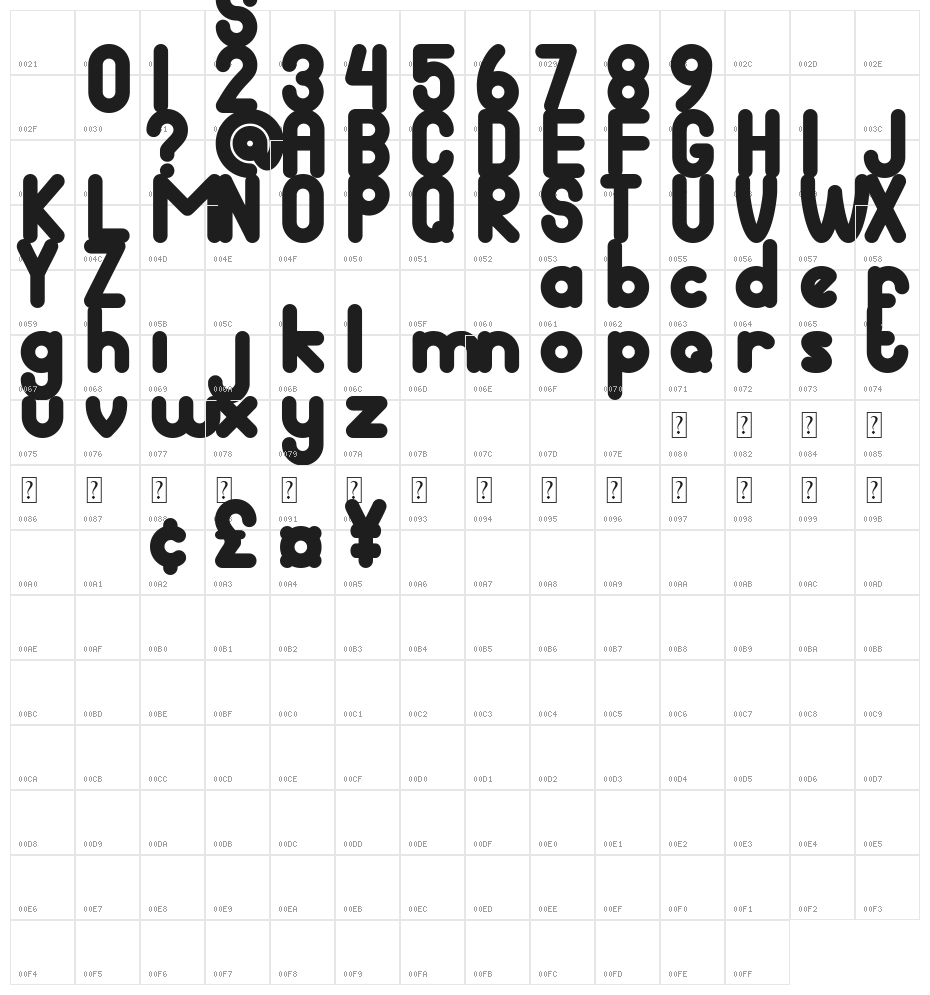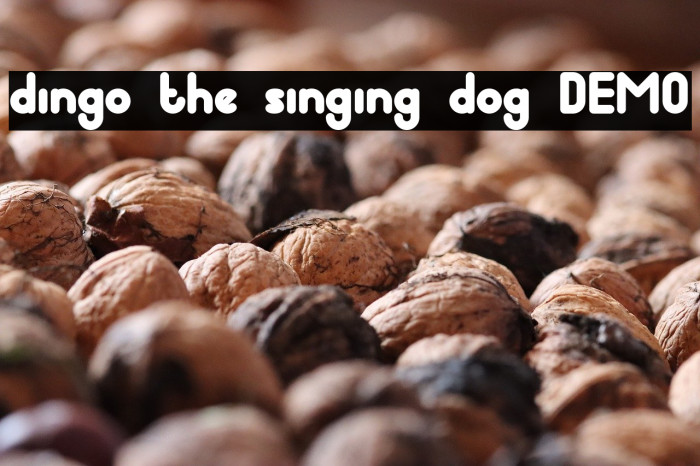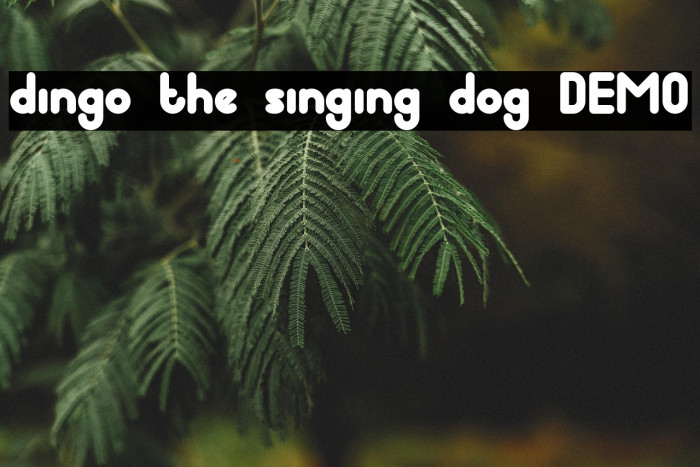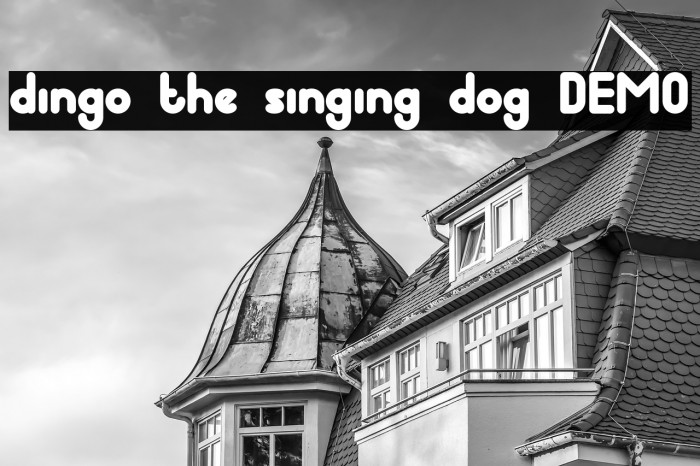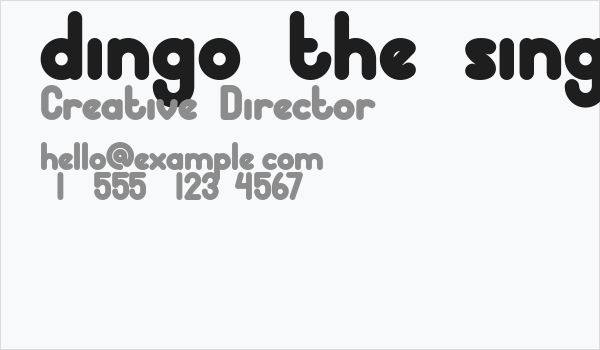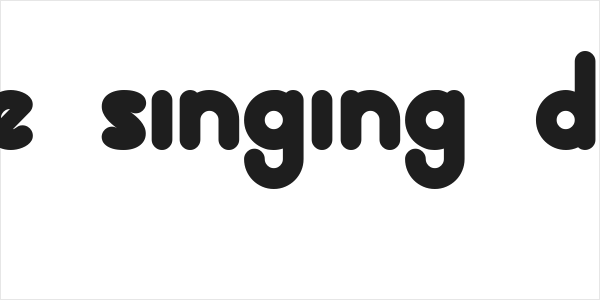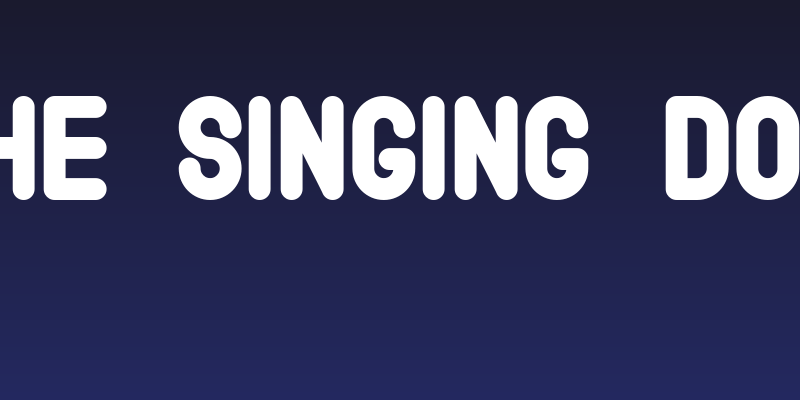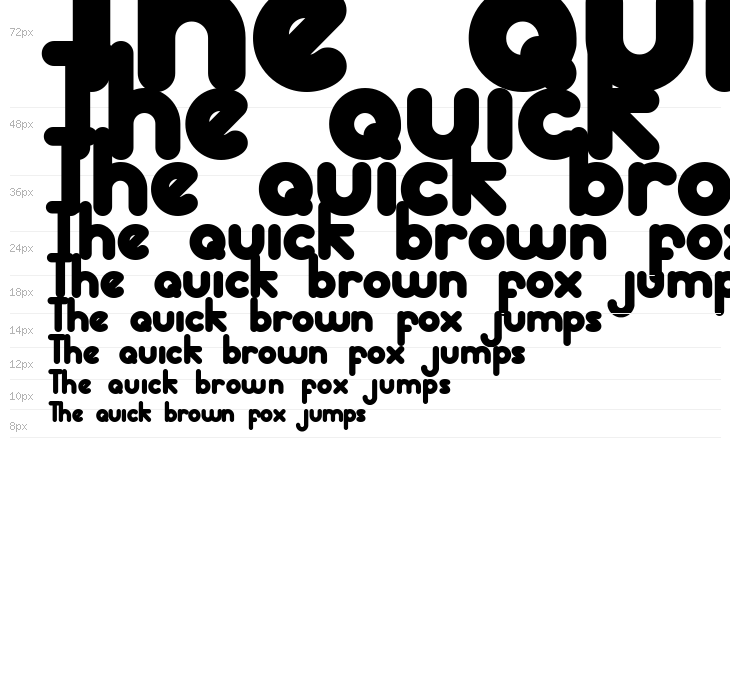
dingo the singing dog DEMO Font
dingo the singing dog DEMO Description
This playful and bold font features rounded edges and a bubbly appearance, giving it a friendly and approachable feel. The characters are uniformly thick, with a consistent stroke width that contributes to its cohesive look. The uppercase letters are slightly taller than the lowercase, maintaining a balanced proportion. The numbers and special characters are designed to match the overall style, ensuring visual harmony across all elements. Its simplicity and charm make it ideal for projects that require a touch of whimsy and fun.
| Proposed Projects | Ideal for children's books, playful branding, greeting cards, and casual invitations. |